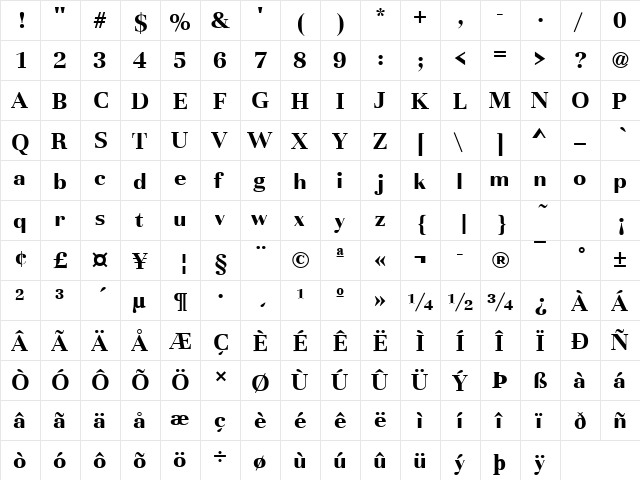
BasiliaT Bold Font Preview
BasiliaT Bold
BasiliaT Bold Font Details
Design Context for BasiliaT Typeface
BasiliaT takes a measured approach to typography — its balanced proportions and neutral character make it a reliable workhorse for both digital and print work. The heavy weight commands attention and anchors typographic hierarchies.